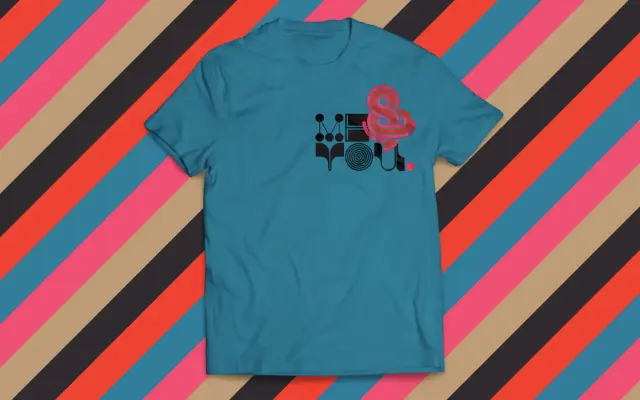
Ragtag Display
In-House Intl · Alexander Wright, Rodrigo Fuenzalida
A geometric display font with three interchangeable glyph variants per letter, designed for adventurous branding and poster work.
Designed by Alexander Wright and digitised by Rodrigo Fuenzalida at In-House International, Ragtag offers three distinct glyph sets for each character across the full alphabet and numerals, allowing designers to mix and match letterforms within a single word or composition. Each character is drawn so it reads as a self-contained graphic unit while still composing harmoniously with the rest. Spanish diacritics and eñes extend its usability beyond standard Latin, and the font ships in OpenType format for both Mac and PC.
Ragtag is a geometric display typeface with three interchangeable glyph variants per letterform, designed explicitly for expressive, loud display use rather than text setting.